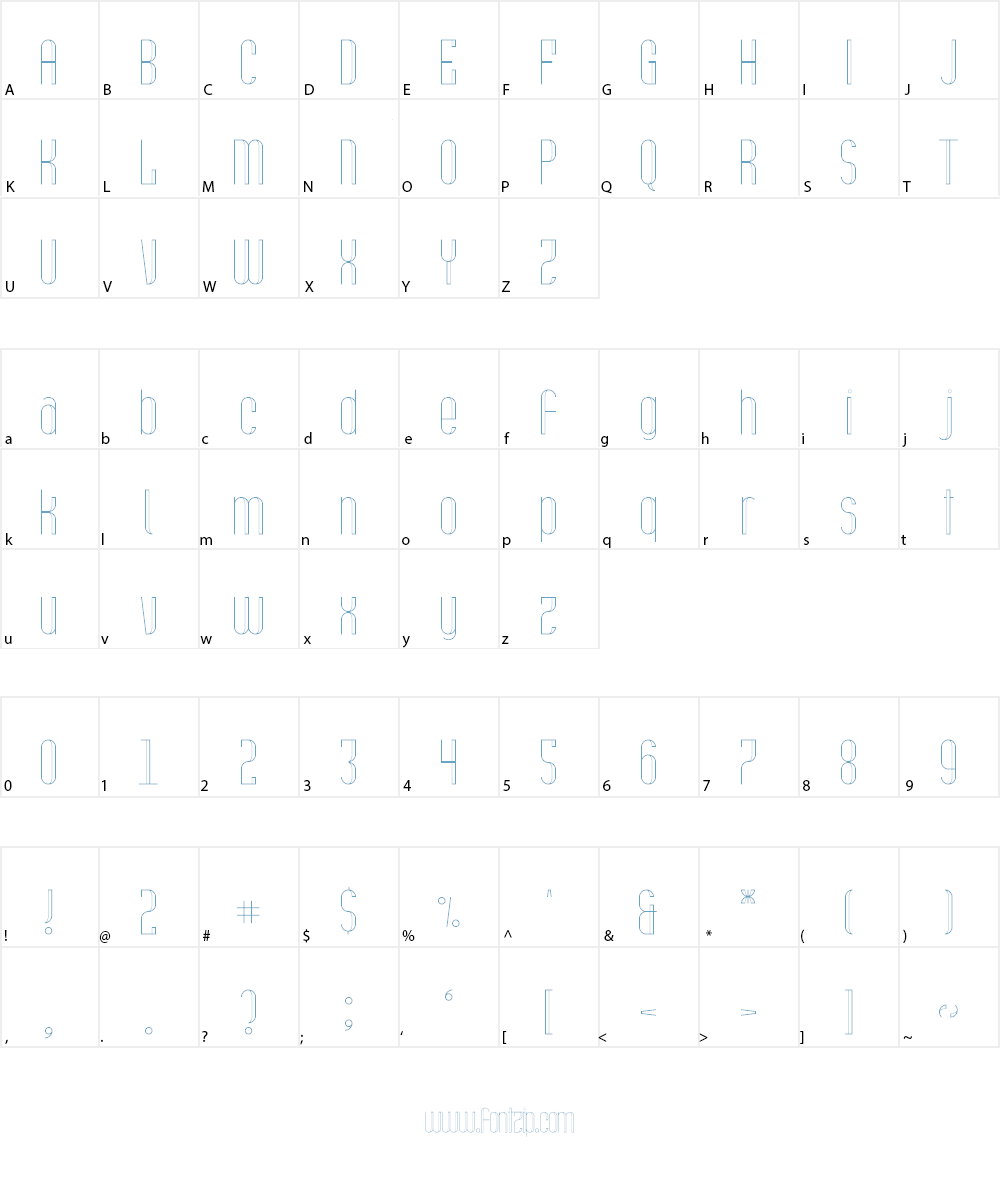
An experimental design that uses two line weights. Supports several languages!
The limitations of FontStruct prevent me from perfecting this design, but I am still quite happy with how it turned out.